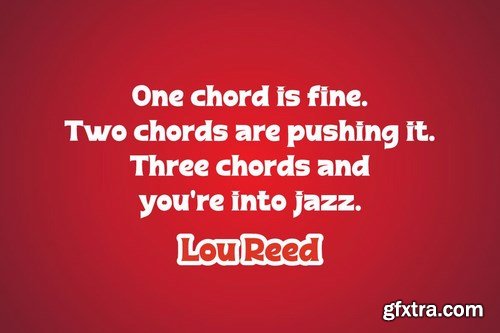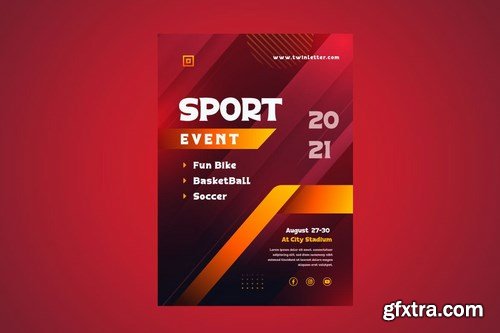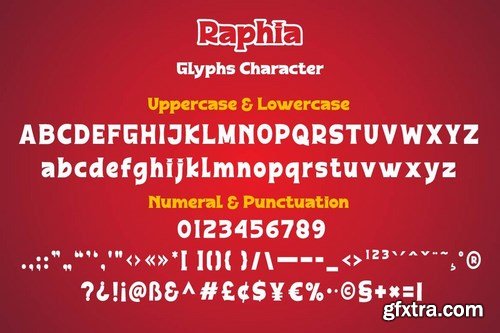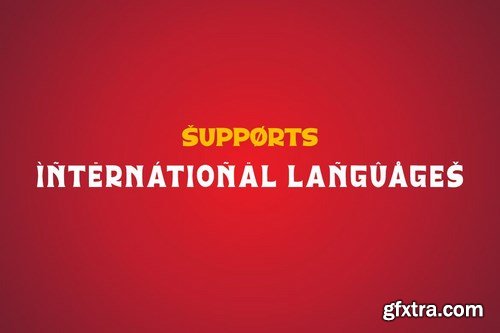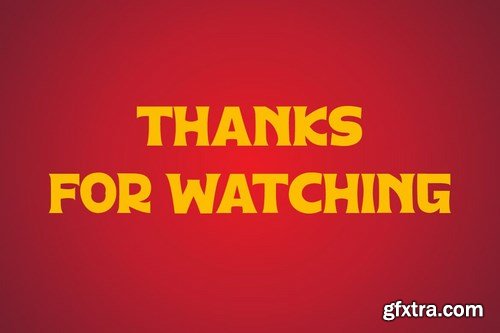
Raphia is a one-of-a-kind display font designed with caution in mind in order to create a font with a powerful, bold, and noticeable character for your varied creative endeavors, maximizing the impression of beauty. Not only that, but this font works well as text in sentences as well. So, what are you waiting for? Start making your creative ideas more beautiful and extraordinary right now, and don’t forget to employ this font.